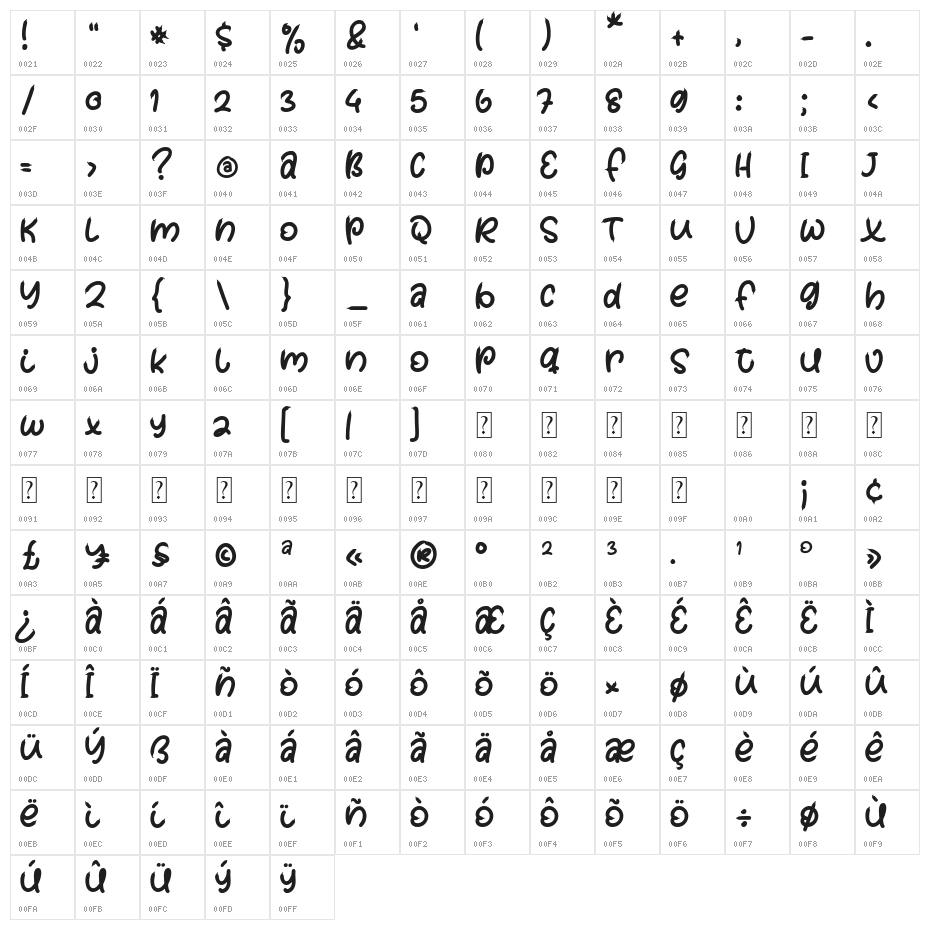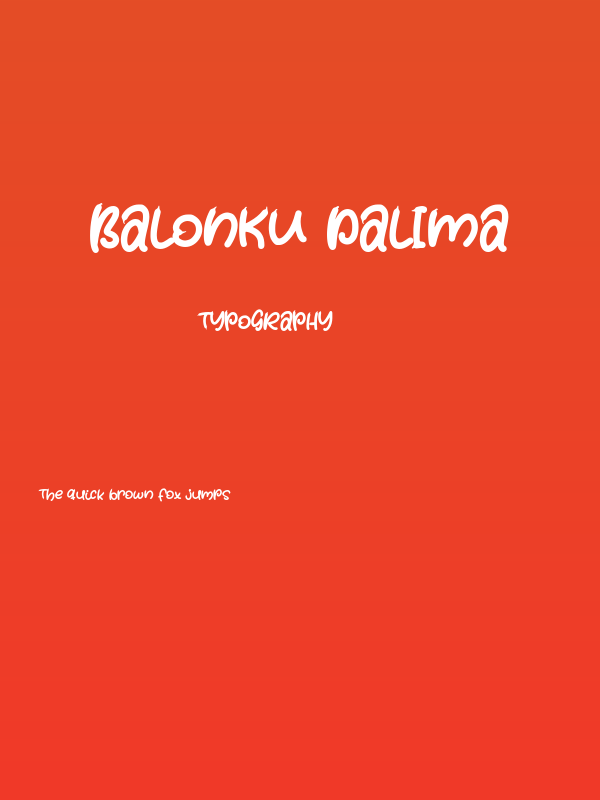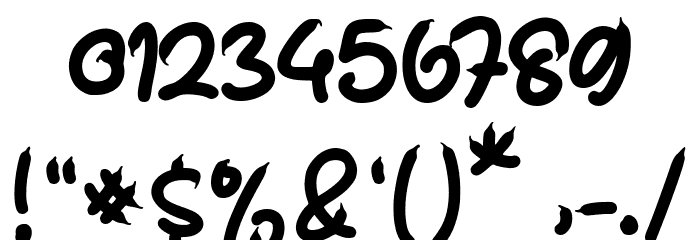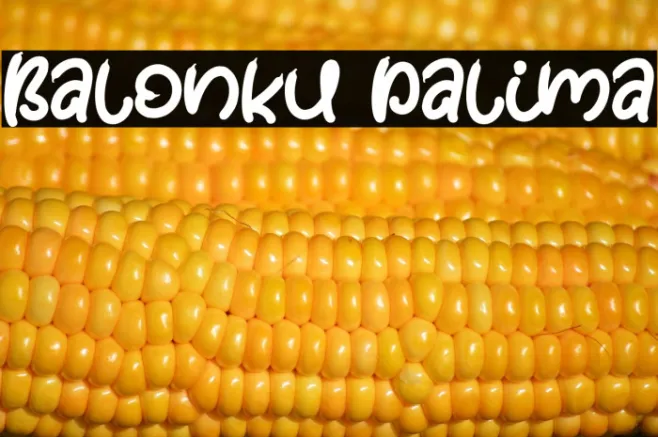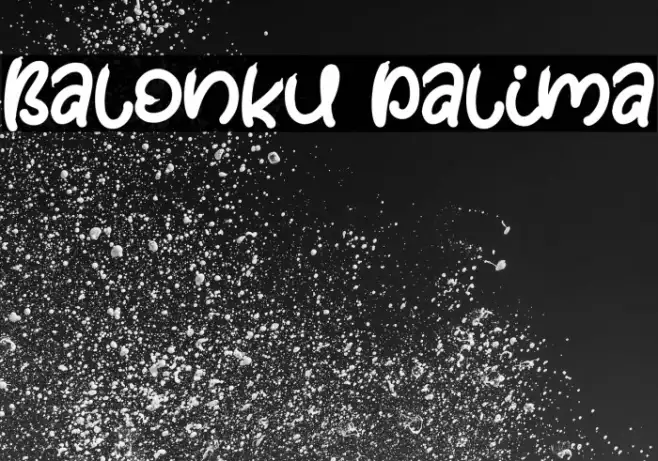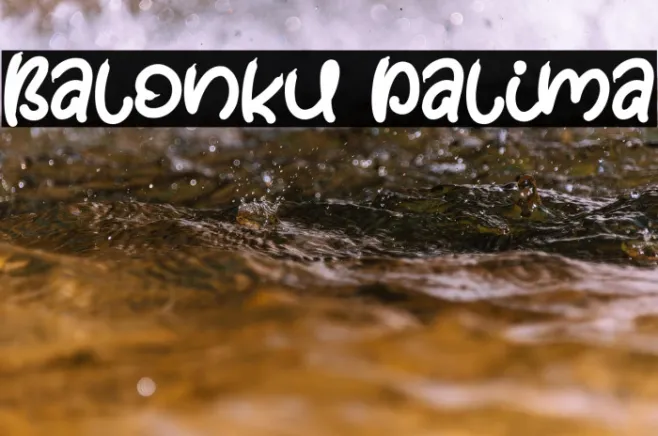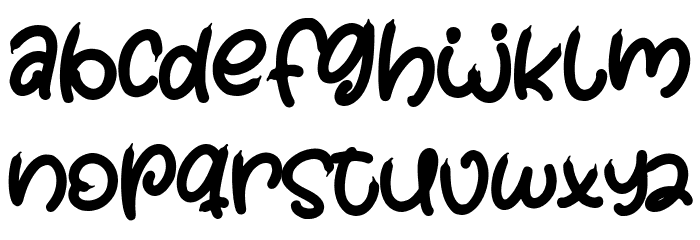
Balonku Dalima Font
Balonku Dalima Description
This playful and bold script font features a handwritten style with smooth, flowing curves and rounded edges. The characters are closely connected, giving it a cohesive and lively appearance. The uppercase and lowercase letters maintain a consistent style, with a slight slant that adds to its dynamic feel. The numerals and special characters are designed to match the overall aesthetic, making it suitable for creative and informal projects. The font's thick strokes and uniform weight ensure readability while maintaining its decorative charm.
| Overall Style | Playful, Decorative |
| Proposed Projects | Ideal for greeting cards, playful branding, children's books, and creative posters. |